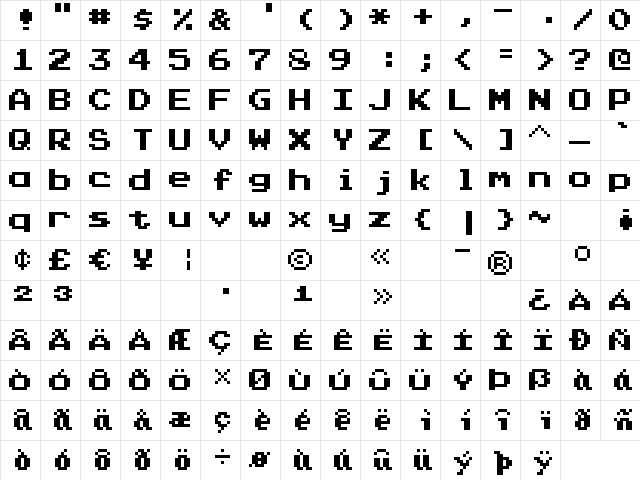
Press Start K Regular
| Foundry | High-Logic |
| Designer | High-Logic - Erwin Denissen 1999 |
Design Context for Press Start K Typeface
Press Start K is a composed and adaptable typeface that performs quietly and consistently across a wide range of design contexts.